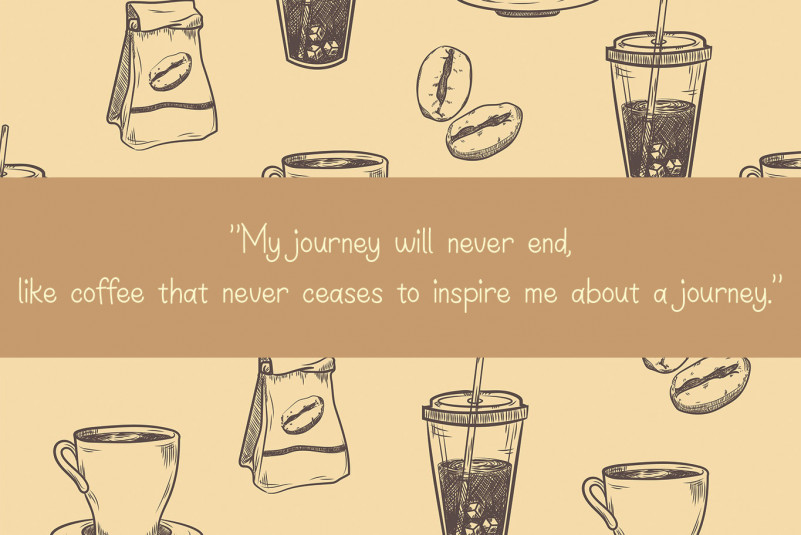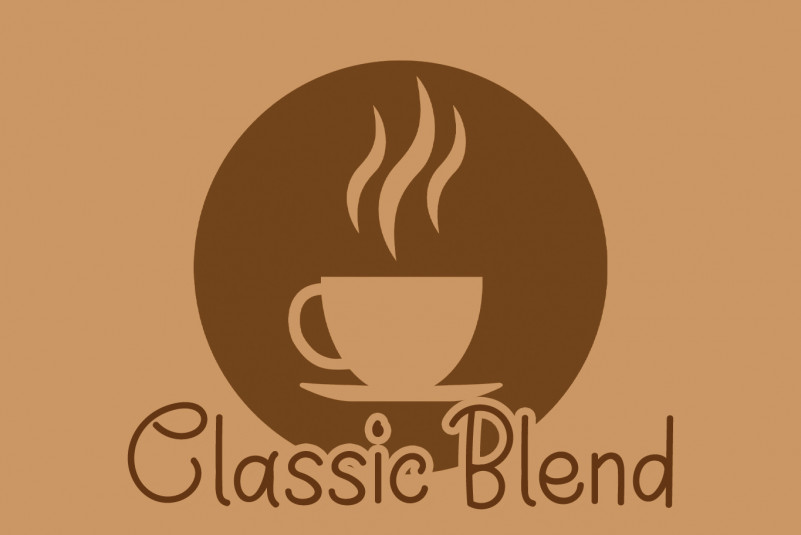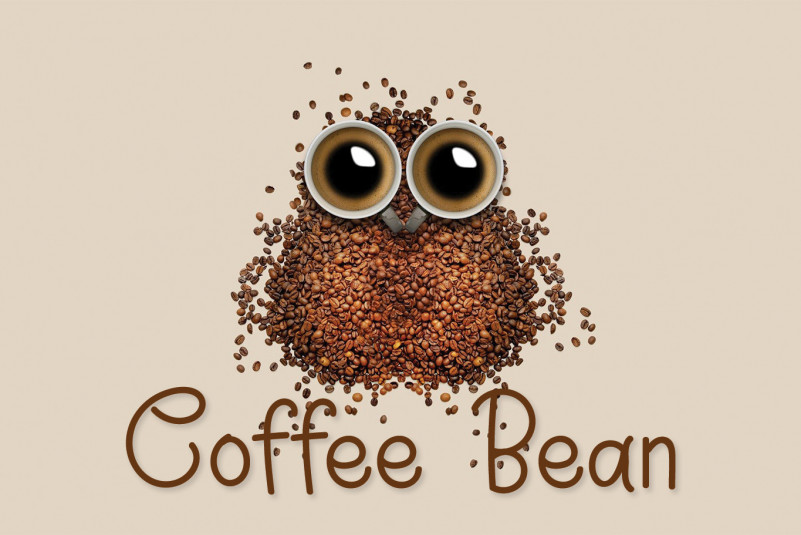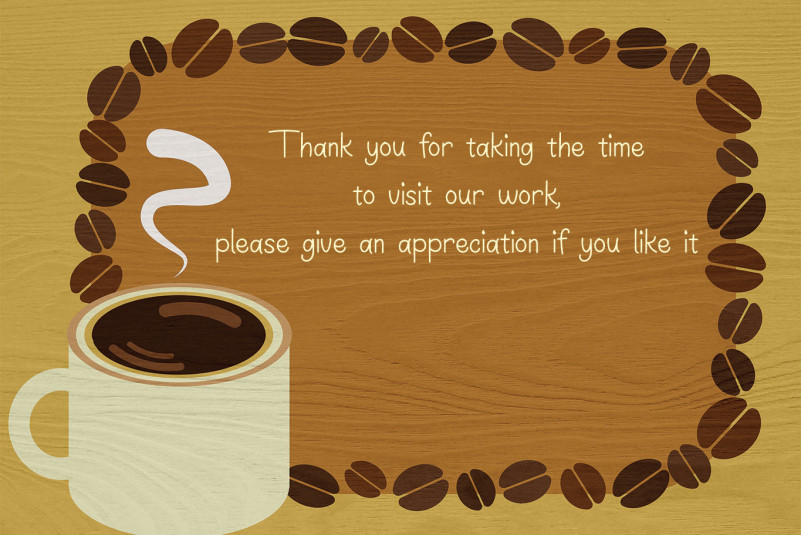
Break Coffee Font
Break Coffee Handwritten Font
This is a stylish and delicate handwritten font. It has a clean, thin and smooth vibe and it will be a hit for any design that you want to add it to!